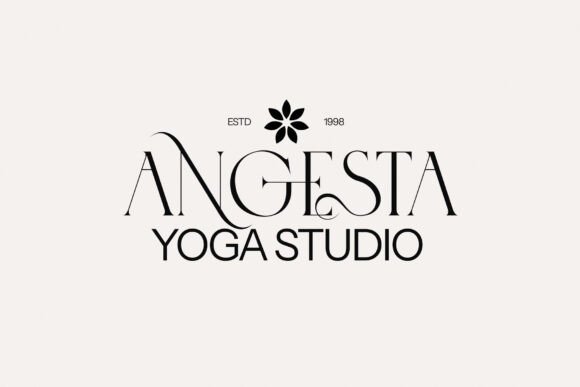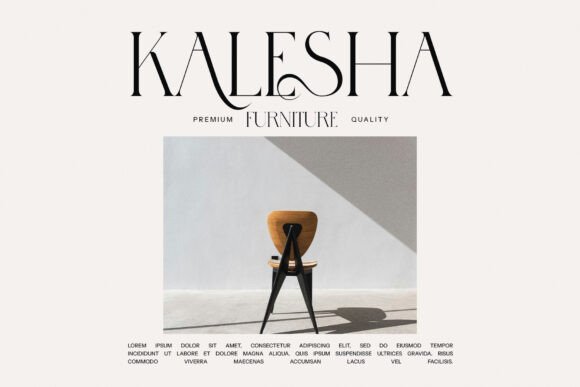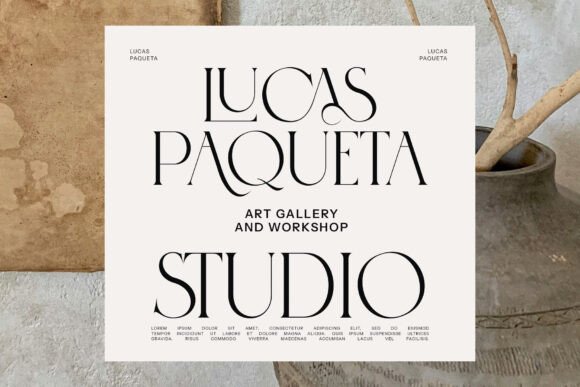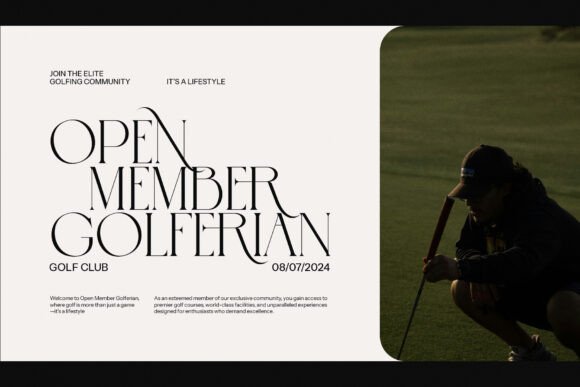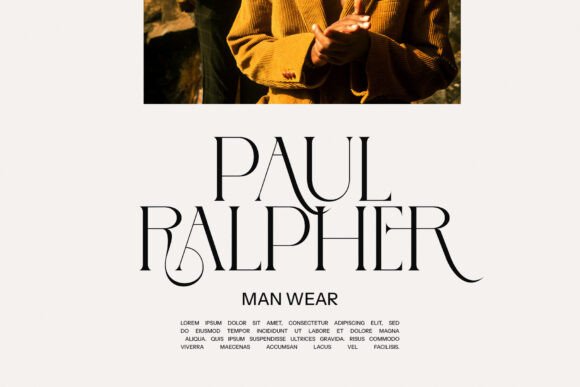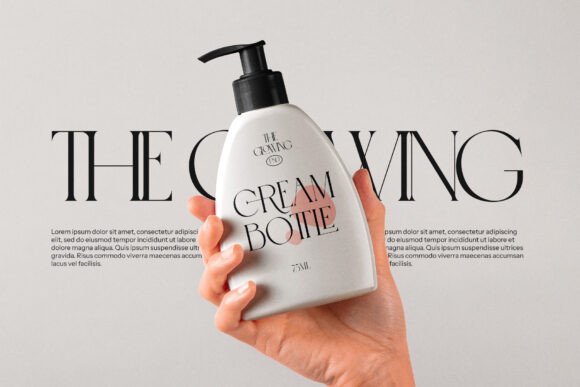
Introduction to Chooran Font
Chooran is an elegant serif font with a classic and stylish design.
Its clean lines and delicate curves make it perfect for creating a refined, professional look This font works well for titles, logos, or any design where you want to add a touch of sophistication.
Key Features of Chooran Font